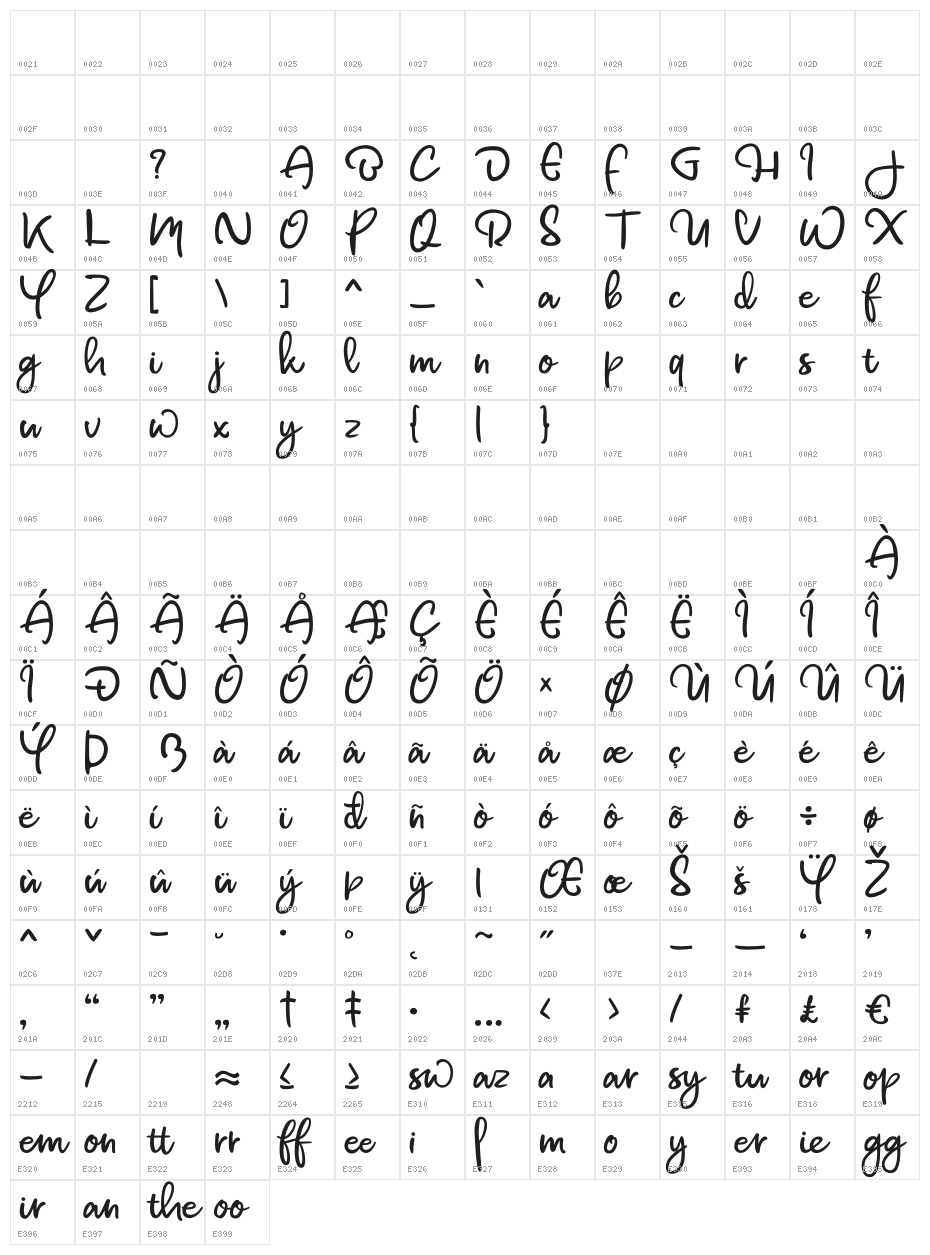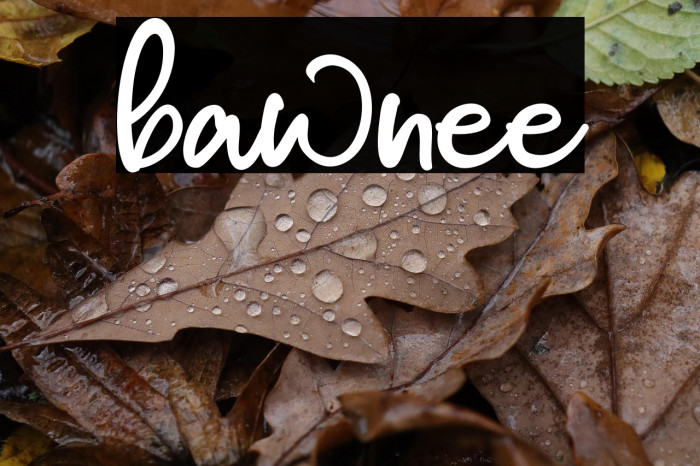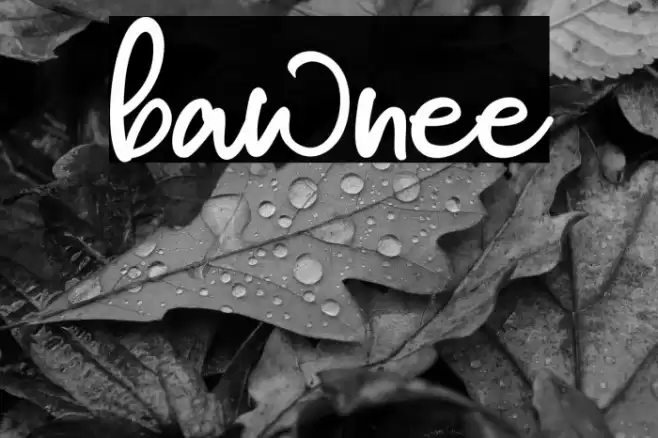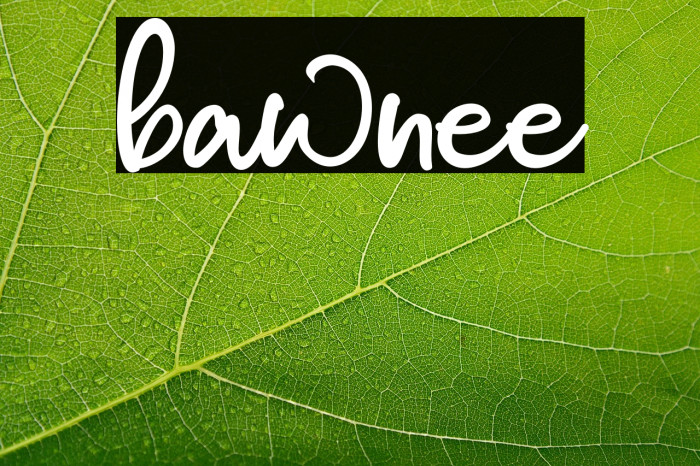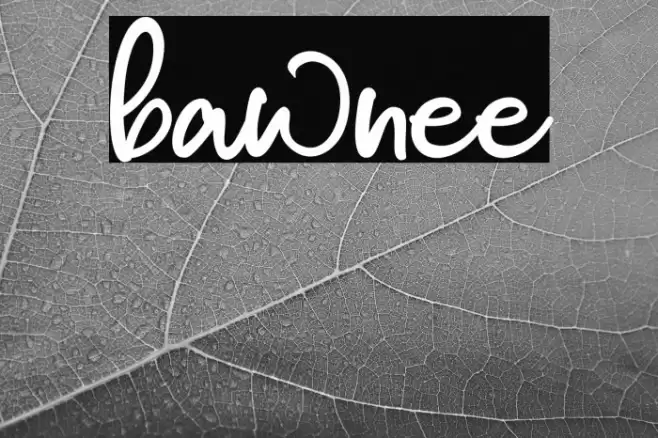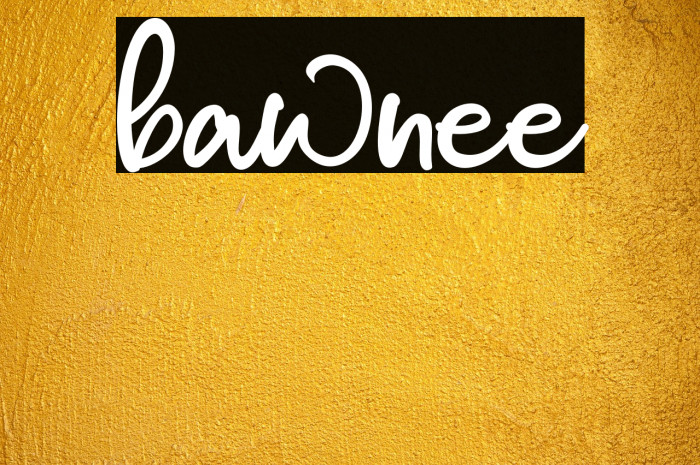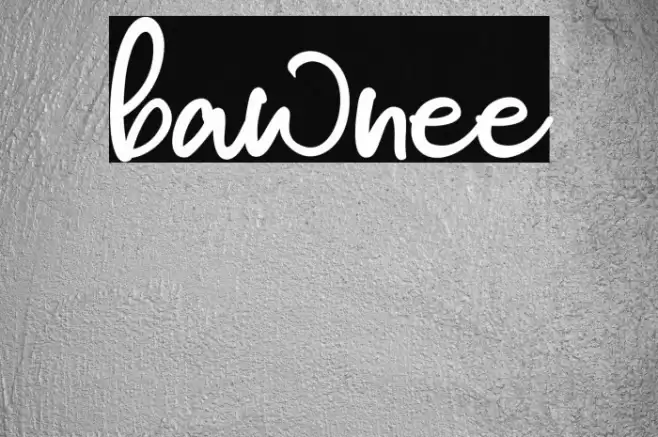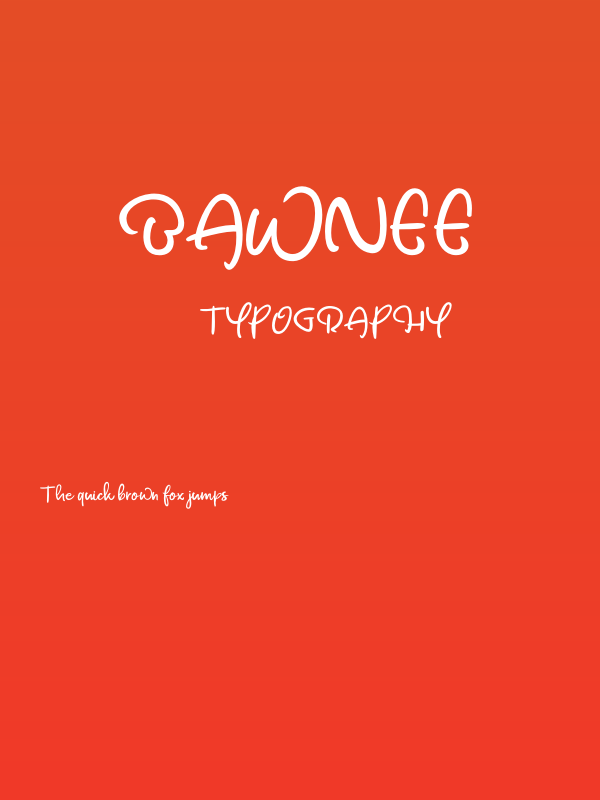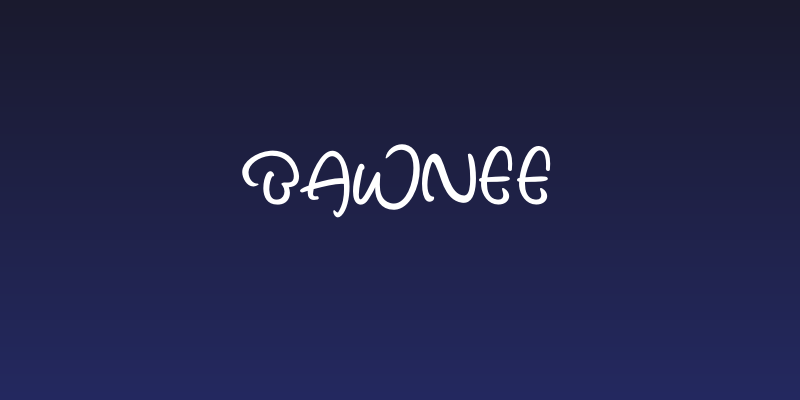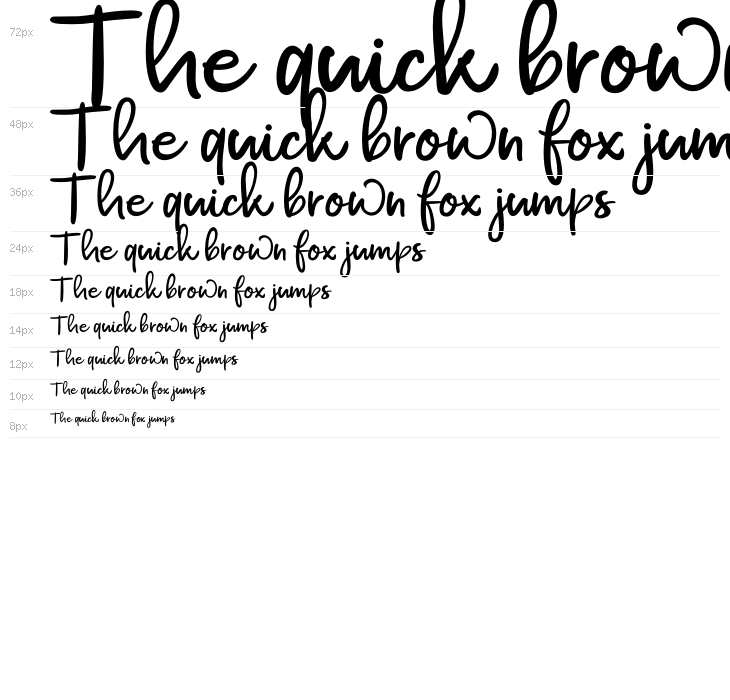
bawnee Font
bawnee Description
This font features a playful and casual handwritten style, characterized by its smooth and flowing curves. The uppercase letters are slightly more structured, while the lowercase letters exhibit a more freeform and connected appearance, giving it a lively and dynamic feel. The strokes are consistent in thickness, providing a uniform look across all characters. The font maintains a good balance between readability and artistic flair, making it suitable for various creative applications. Its unique style can add a personal touch to any design project, making it stand out with its charming and approachable aesthetic.
| Proposed Projects | Ideal for greeting cards, invitations, personal branding, and social media graphics. |